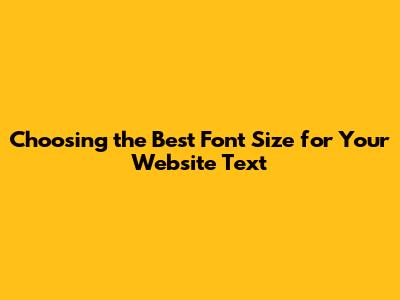
Choosing The Best Font Size For Your Website Text
Hey everyone! Today, we're diving deep into something super important for your website: font size! Yep, it might seem like a small detail, but trust me, getting your font size right can make or break your website's success. It affects everything from how long people stay on your site to whether they can actually read what you've written. We'll be looking at the best font sizes and how they impact website text, because, let's be real, nobody wants a website that's hard on the eyes. We'll cover everything from readability to user experience and accessibility. So, let’s get started and make sure your website is easy and enjoyable to read!
Why Font Size Matters: Readability, User Experience, and SEO
Alright, let’s talk about why font size is such a big deal. The best font size is one that's easy on the eyes and keeps visitors engaged. It impacts readability and the overall user experience. When people visit your site, they want to quickly find what they need. If your text is too small, they'll bounce. Too big? It can look unprofessional or even worse, it could be visually distracting. So, it's a Goldilocks situation – you need a font size that's just right.
Readability is the cornerstone of a good website. If your text is hard to read, your visitors will leave, plain and simple. Think about it: If you struggle to read something, are you going to stick around? Of course not! Readability is about making your content accessible and easy to consume. Proper font sizing contributes to this. Now, while we’re talking about user experience, it goes beyond simple readability. It’s about how people feel when they’re on your site. Is it a pleasant experience? Is it easy to navigate? Is it enjoyable? If your font size is well-chosen, it contributes to a positive user experience. This means more time on your site, which can lead to higher engagement and conversions.
Then there’s SEO (Search Engine Optimization). While font size isn't a direct ranking factor, it indirectly influences your search engine rankings. Here's how: If your website has good readability and user experience (thanks to a suitable font size!), people will stay on your site longer. They’ll also be more likely to visit other pages. This tells Google that your site is valuable, which can improve your rankings. So, choosing the best font size is really about creating a positive experience that benefits both your users and your search engine rankings. By focusing on readability, improving the user experience, and indirectly supporting your SEO efforts, you are building a website that not only looks great but also performs exceptionally well. So, let’s make it easy to read, easy to use, and easy to love.
Understanding Font Size Units: Pixels, Ems, and Rems
Okay, let’s get a little technical for a sec. When we talk about font sizes, there are a few different units you should know: pixels (px), ems (em), and rems (rem). Each has its pros and cons, so choosing the right one can make a big difference in how your website looks and functions.
Pixels (px) are the most straightforward unit. A pixel is a single point on your screen. When you set a font size in pixels, it's a fixed value. If you use 16px, your text will always be 16 pixels high, no matter the screen size or the user’s browser settings. The biggest advantage of using pixels is that they’re simple and easy to understand. However, they aren't the most flexible choice. Since the size is fixed, your text won’t scale easily on different devices. This can lead to readability issues on smaller screens. Using pixels can be great for setting the base font size, but when it comes to headings and larger blocks of text, it's generally better to use relative units like ems or rems.
Now, let's look at ems (em). Ems are a relative unit. They are relative to the font size of the parent element. For instance, if the parent element has a font size of 16px, then 1em is equal to 16px. If you set a font size to 2em, it would be 32px. The main advantage of using ems is that they scale relative to their parent element. This is useful for creating a responsive design that adapts to different screen sizes. However, ems can get a bit tricky when nesting elements because their size is always relative to their parent. This can sometimes lead to confusing calculations if you have a lot of nested elements. Therefore, using ems for specific font adjustments is a good choice to ensure things scale gracefully.
Finally, we have rems (rem). Rems are also a relative unit, but they are relative to the root element (usually the <html> tag). This means that 1rem is equal to the font size of the root element, typically the base font size of the website. If your root font size is 16px, then 1rem is 16px. The main benefit of using rems is that they're predictable and consistent. Because they are based on the root element, you can easily control the overall size of your text by changing the root font size. This makes it much easier to scale your entire website without having to adjust every element individually. For larger projects with a complex structure, rems are often the preferred choice. They offer a great balance between flexibility and control, ensuring that your website looks good on all devices.
Best Font Sizes for Different Elements
Alright, let’s talk about the specific font sizes you should use for different elements on your website. Choosing the best font size is a crucial part of creating a great user experience. We will be looking at font sizes for different elements. Because what works for a heading might not be ideal for body text or captions.
For body text (the main content of your paragraphs), the ideal font size usually falls between 16px and 18px. This size is generally considered readable and comfortable for most users. This range ensures that your visitors can easily read the bulk of your content. Remember, the goal is to make it easy for people to read your content without straining their eyes. You can adjust this slightly based on the font you choose, but these are solid starting points.
Now, for headings (like your <h1>, <h2>, etc.), you'll want to use larger font sizes to make them stand out and indicate the structure of your content. The most common sizes are <h1> at 24px-36px, <h2> at 18px-30px, and <h3> at 16px-24px. The larger font sizes immediately grab attention. These sizes provide a visual hierarchy. They help your readers quickly understand the structure of your content. The font size you choose will depend on the design of your site and the font you select.
Then there are subheadings. These help break up the text. Subheadings are smaller than main headings but larger than body text. This will help readers easily scan your content and find the information they need. If you are using a font size of 16px for your body text, you could use 18px-20px for your subheadings. This will create a clear visual distinction. Use subheadings to break up large blocks of text, guiding readers through your content in a more structured manner.
Next, captions and small text (like those used under images or in footers) should be smaller than your body text. The recommended size is between 12px and 14px. Smaller text is appropriate here. This helps ensure that these details don’t distract from the main content. This text size will be smaller, but it needs to be readable.
Finally, let’s consider navigation menus. These usually use a font size between 14px and 16px. The font size should be large enough to be easily readable but not so large that it overwhelms the design of your site. It needs to be clear and easy to find, without being intrusive. Always remember to test your font sizes across different devices to make sure they look good on all screens. That’s the most important thing!
Optimizing Font Size for Readability and Accessibility
Let’s talk about optimizing font size for readability and accessibility. It's not just about picking a random number; it's about creating a user-friendly experience for everyone. Here are some key things to keep in mind.
First, consider line height and line length. Line height (also known as leading) is the space between lines of text. A good line height enhances readability. Generally, aim for a line height that is 1.5 times the font size. This provides enough space between lines so that the text doesn't feel cramped. Line length (the width of the text block) also impacts readability. Keep your lines of text reasonably short – about 50-75 characters per line is a good rule of thumb. This prevents your readers from having to scan long lines, which can be tiring on the eyes.
Then there’s color contrast. Make sure there is enough contrast between your text color and the background color. Low contrast can make text difficult to read, especially for people with visual impairments. Use a contrast checker tool to ensure your color combinations meet accessibility standards (WCAG guidelines). As a general rule, you should use light text on a dark background or dark text on a light background. This is a crucial step to make sure your website is accessible to everyone.
Now, let's talk about font choice. Not all fonts are created equal. Some fonts are more readable than others. Choose a font that is easy to read, even at smaller sizes. Some fonts are designed to be clear and readable. A good font will improve the overall reading experience. Sans-serif fonts (like Arial, Helvetica, or Open Sans) are generally considered more readable for body text. However, the best font depends on your brand and your target audience. Always test your font on different devices to make sure it looks good on all screens.
Don’t forget about responsive design. Your font sizes should adjust automatically on different devices. Use relative units (ems or rems) so that the text scales with the screen size. Test your website on various devices, including smartphones, tablets, and desktops. This ensures your website is accessible on all devices. Remember, the goal is to make your website readable and user-friendly for everyone. By paying attention to these details, you'll create a website that's accessible to everyone.
Tools and Tips for Testing Font Size
Okay, let’s wrap this up with some tools and tips for testing and refining your font sizes. After you've chosen your font sizes, you need to make sure they actually work in the real world. Here’s how you can do it!
First, there are some really great online tools that can help. There are many contrast checkers available to make sure your color combinations meet accessibility standards. There are tools that will help you evaluate the readability of your content. You can also use online font size comparison tools. They will let you compare different font sizes side-by-side, which is helpful to see how they look. You can find these tools by searching online. Just search for